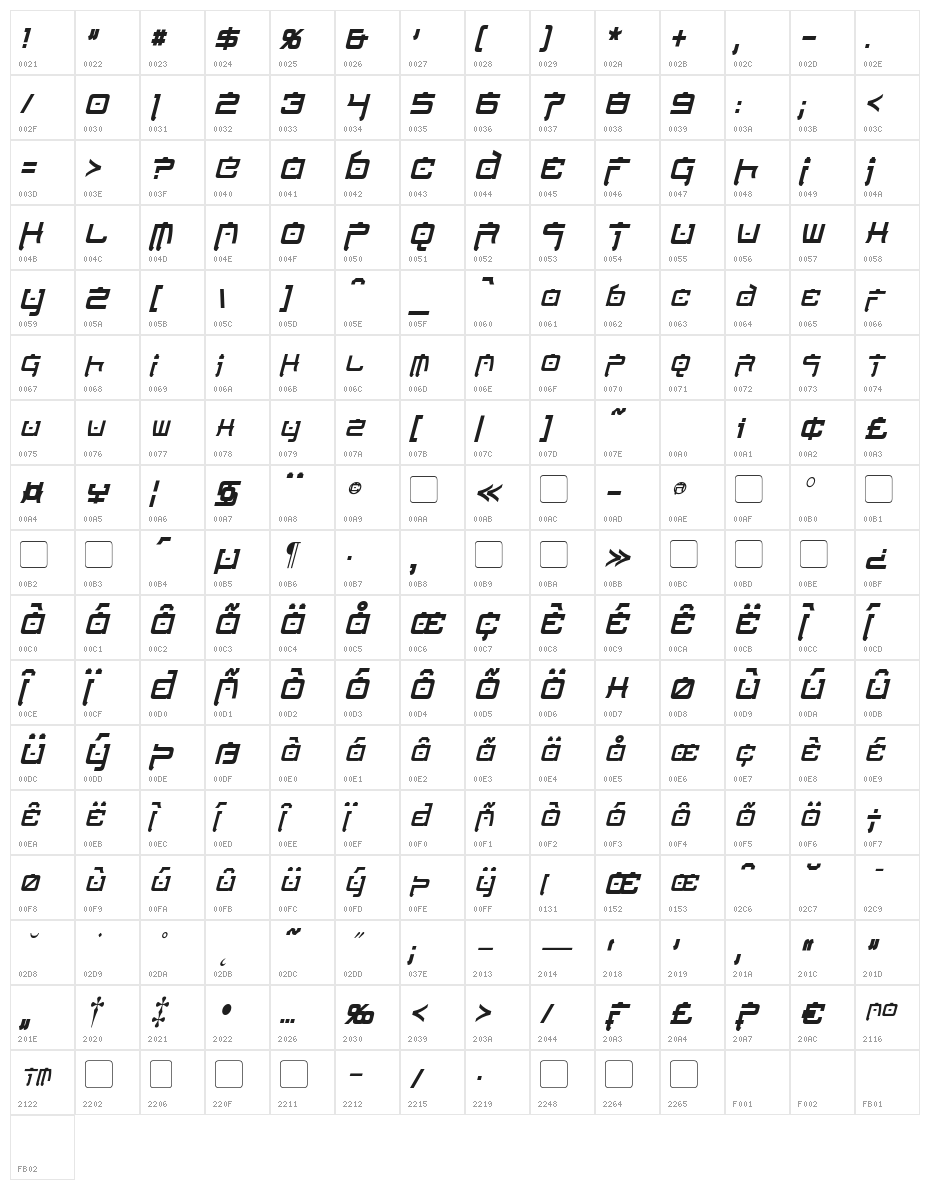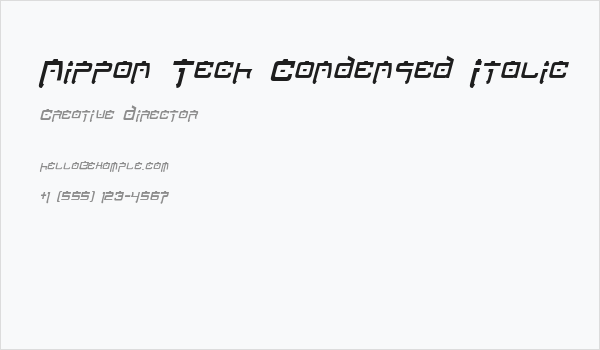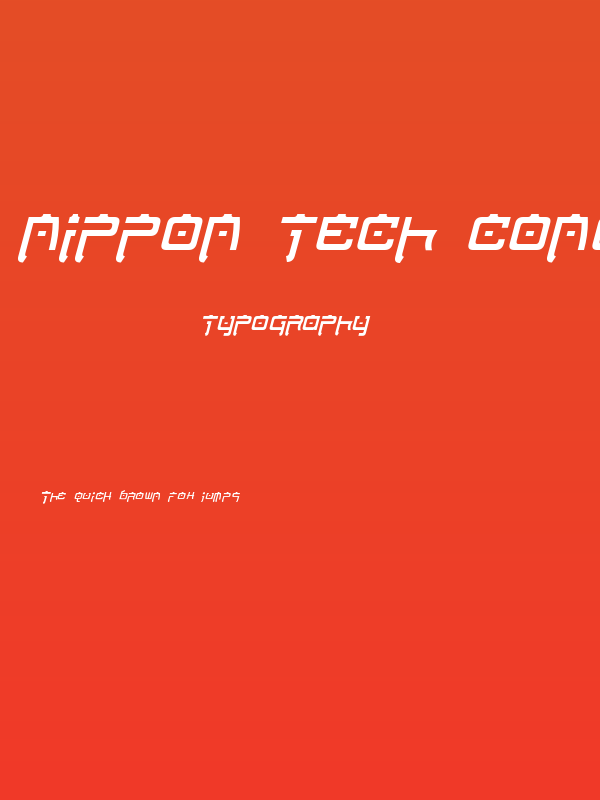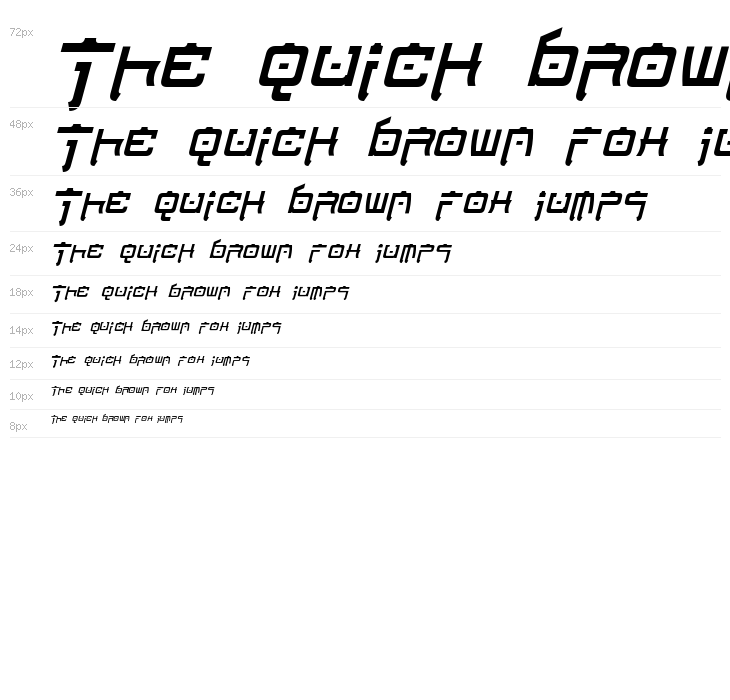
Nippon Tech Condensed Italic Font
Nippon Tech Condensed Italic Description
This font features a futuristic and technological design with a condensed and italicized style. The characters are angular and sharp, giving a sense of speed and modernity. The uppercase and lowercase letters maintain a consistent geometric structure, while the numerals and special characters complement the overall aesthetic. The font's unique style makes it suitable for projects that require a modern and dynamic look.
| Proposed Projects | Ideal for technology branding, sci-fi themed designs, video game interfaces, and modern advertising. |